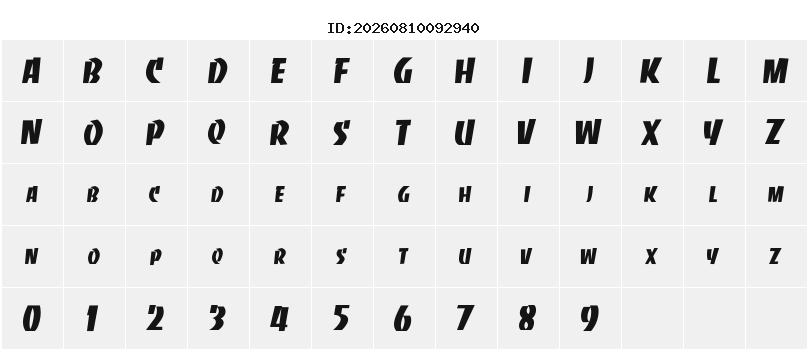
• Font Name: PCHardnose
About PCHardnose.ttf
PCHardnose.ttf is a modern, elegant sans-serif font designed for ultimate readability and visual harmony. Perfect for branding, headlines, web design, and print materials.